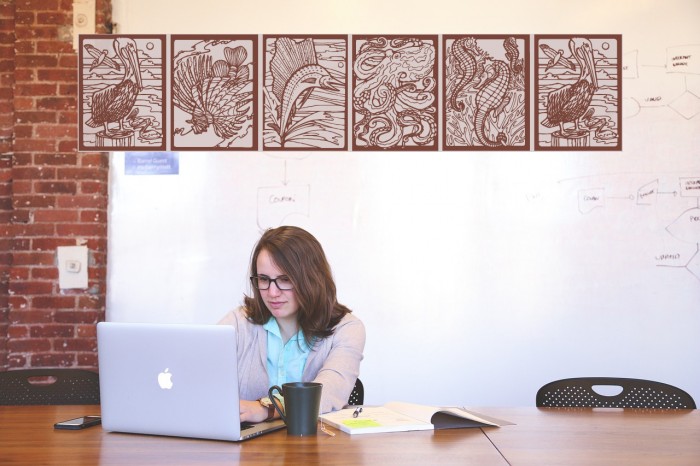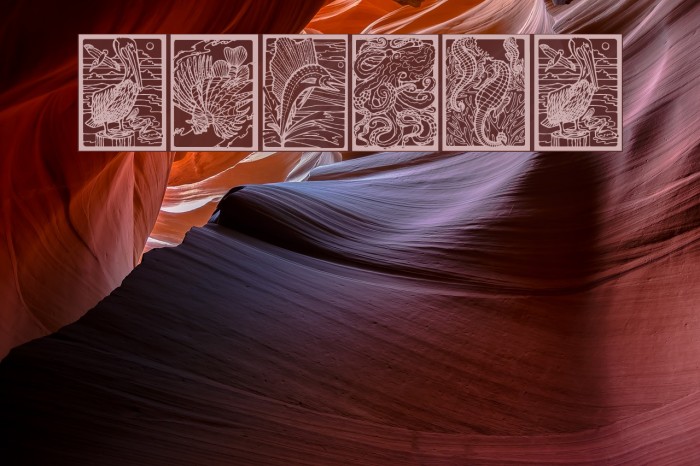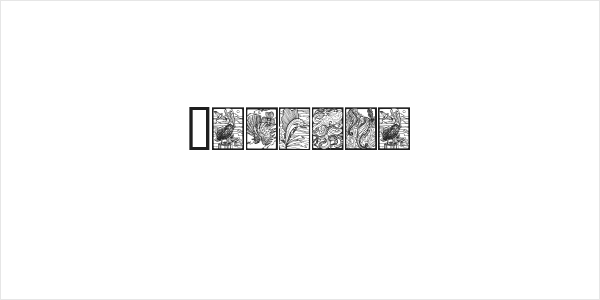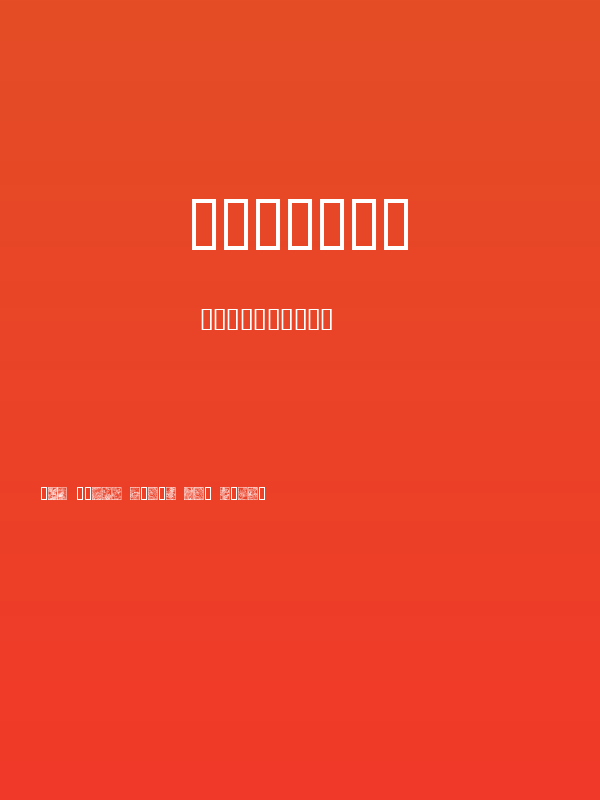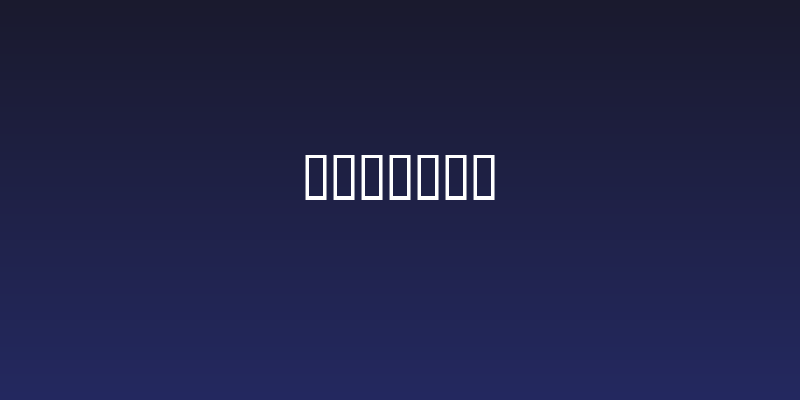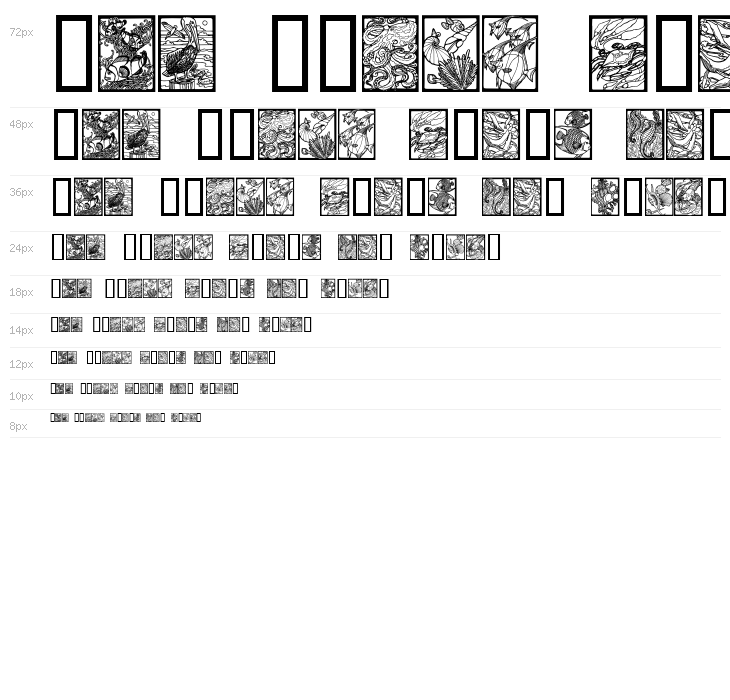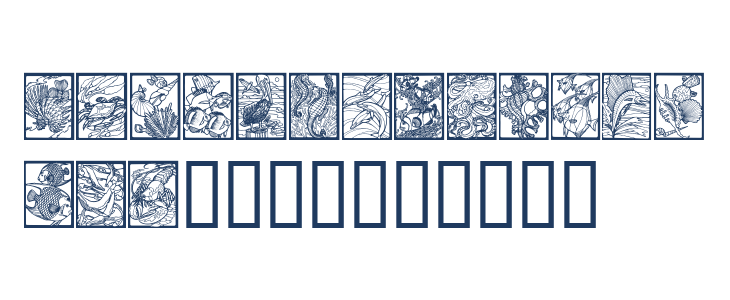
Sealife Font
Sealife Description
A decorative set of illustrated glyphs featuring intricate underwater scenes with sea creatures, plants, and aquatic elements. Each character is represented by a unique, detailed black-and-white drawing within a rectangular frame.
| Overall Style | Decorative, Thematic, Artistic |
| Use Case | Logos, Headlines, Themed graphics, Decorative drop caps |
| Proposed Projects | ChildrenΓ’β¬β’s books, educational materials, themed posters, invitations, scrapbooking, decorative initials. |